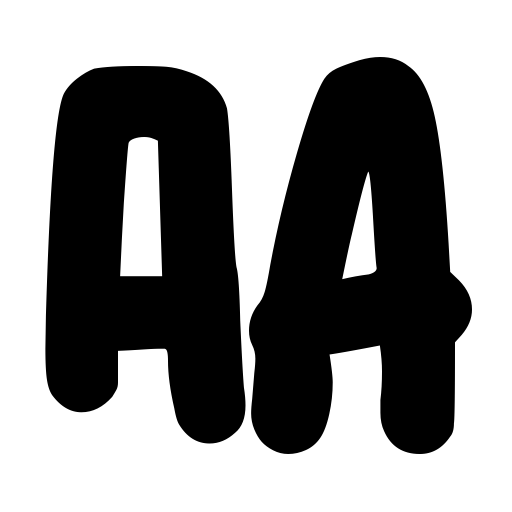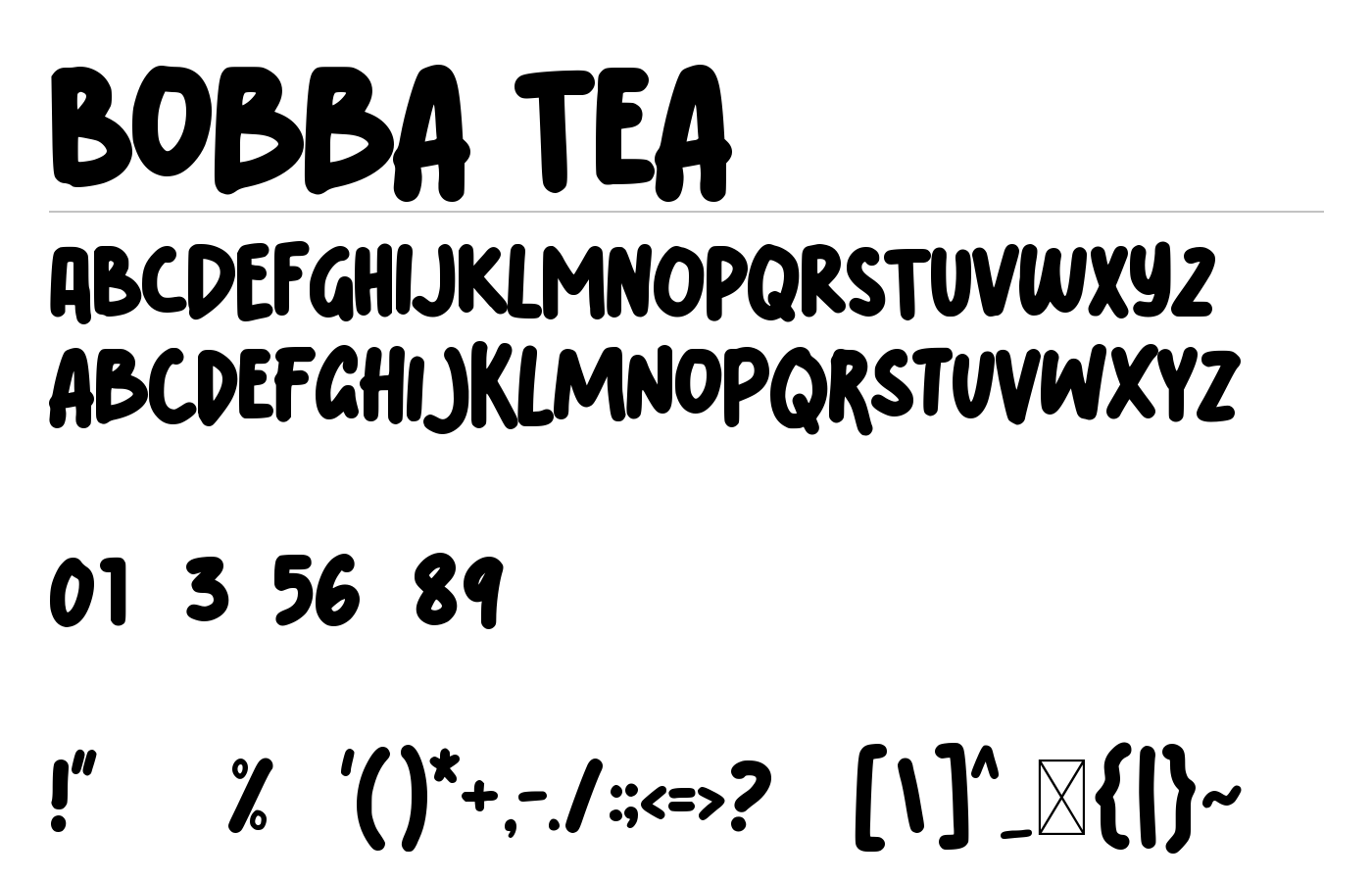
Bobba Tea is a bold, playful sans serif font with rounded, chunky letterforms that give it a friendly and approachable vibe. Its casual, handwritten style and high x-height make it ideal for fun, youthful branding, packaging, and headlines that want to convey warmth and energy. This font works well where a lively, informal tone is desired, such as in kids’ products, cafe menus, and creative posters.
Bobba Tea Font
About Bobba Tea Font
| Font family | Bobba Tea Font |
| Designer | Anang F & Malik Wsn | Gassstype© Studio 2022 |